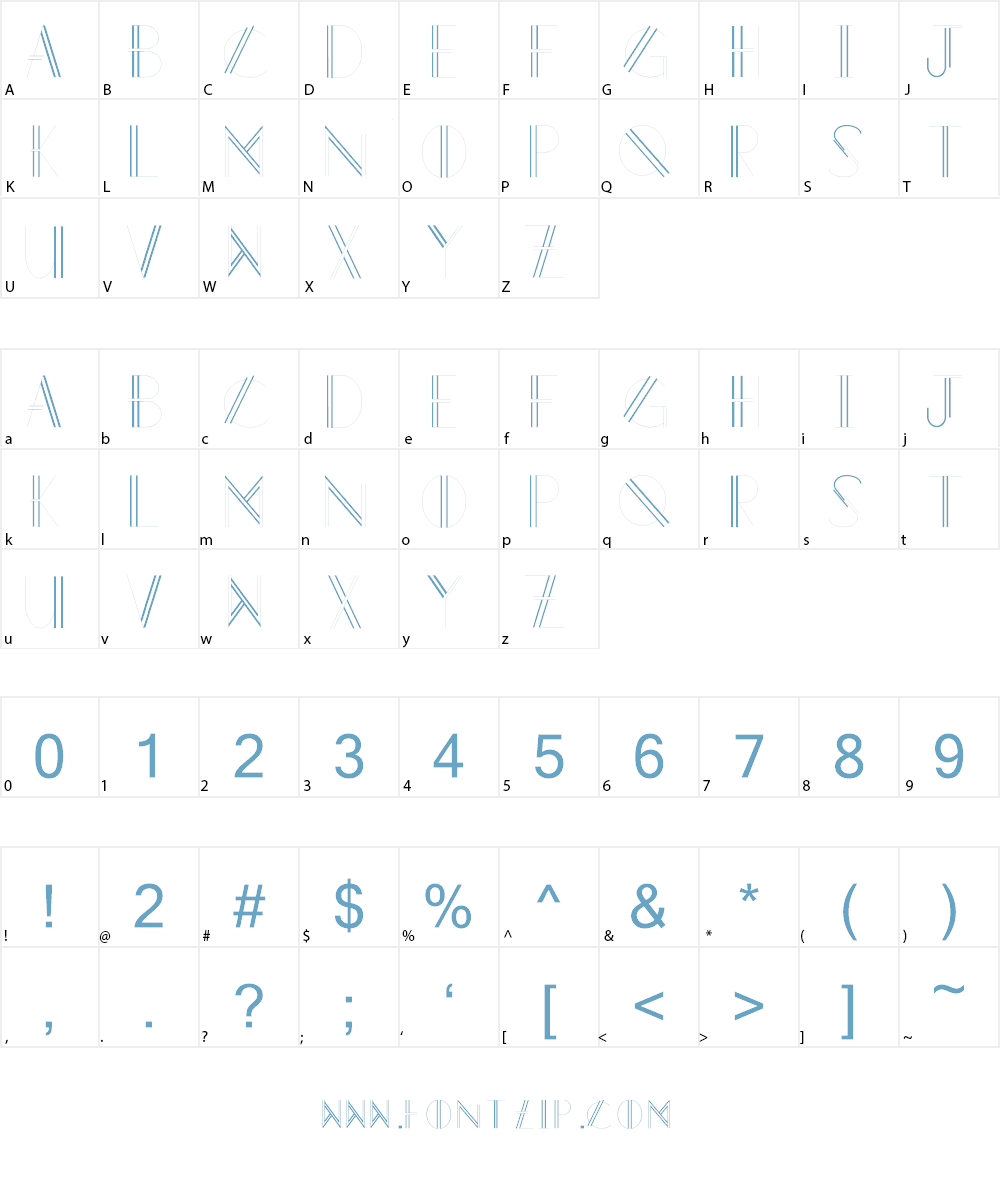
Futuristic sans-serif font in all caps. Zenith incorporates thin lines and geometric shapes to create the perfect modernist font for any composition.